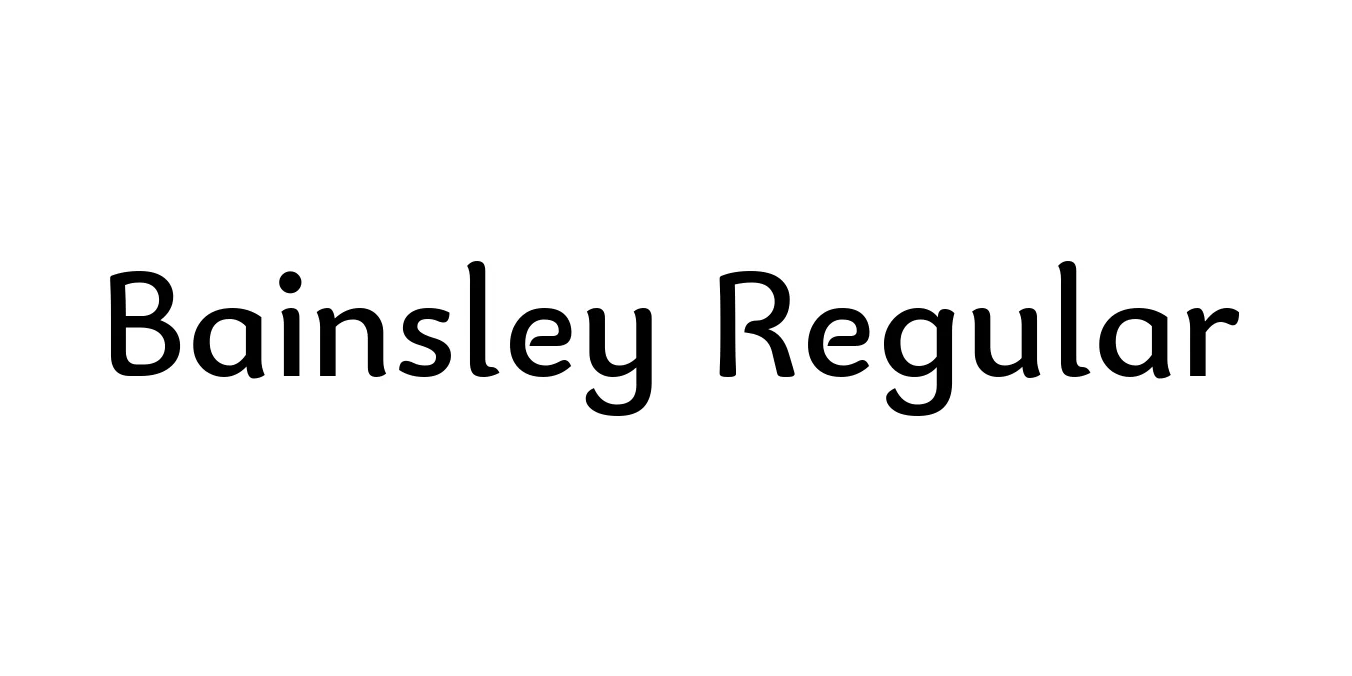
Bainsley Regular
Designed by Jeremy Dooley
Bainsley Regular is a sophisticated typeface designed by Jeremy Dooley and released through the insigne foundry. It is classified as an incised face or a "serifless serif," designed to bridge the gap between the clean structure of a sans-serif and the elegant finish of a traditional serif. The design features subtle flaring at the stroke terminals, which draws inspiration from classical stone-carved lettering, providing a refined and calligraphic touch to modern digital typography.
The Bainsley Regular weight is particularly prized for its versatility and high legibility. With a tall x-height and open counters, it performs exceptionally well in both long-form body text and high-impact display environments. Its unique blend of historical aesthetics and contemporary precision makes it an ideal choice for high-end corporate identities, editorial projects, and any design requiring a professional yet distinct personality.
Bainsley Regular Best Uses
Excellent for high-end magazine layouts and long-form reading materials.
Ideal for luxury logos, sophisticated stationery, and professional identities.
Provides clear legibility and a refined look for website headers and sub-headers.
Works beautifully for annual reports, brochures, and high-quality brochures.